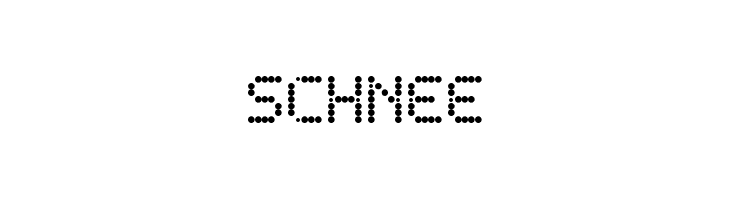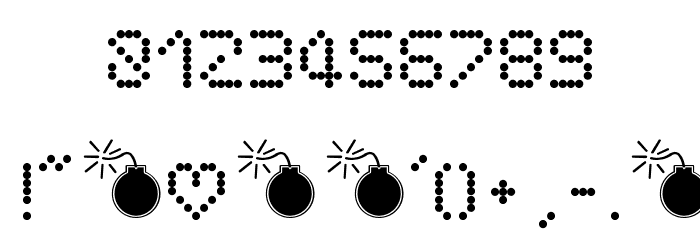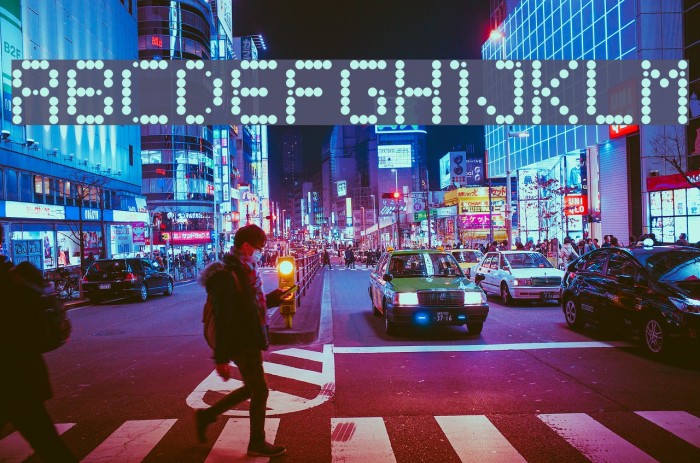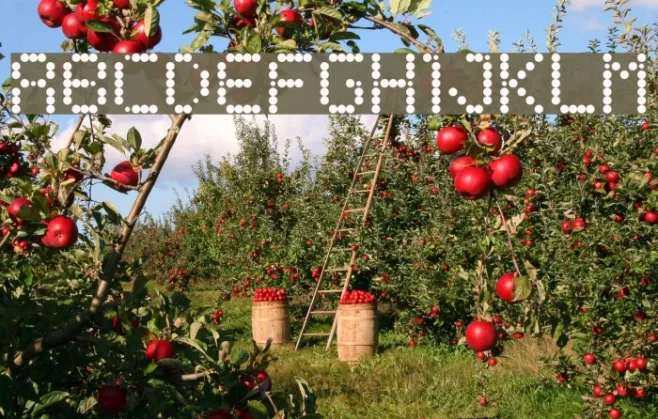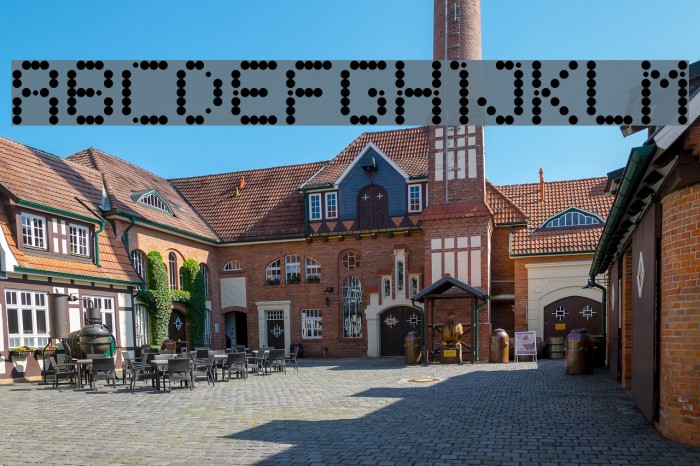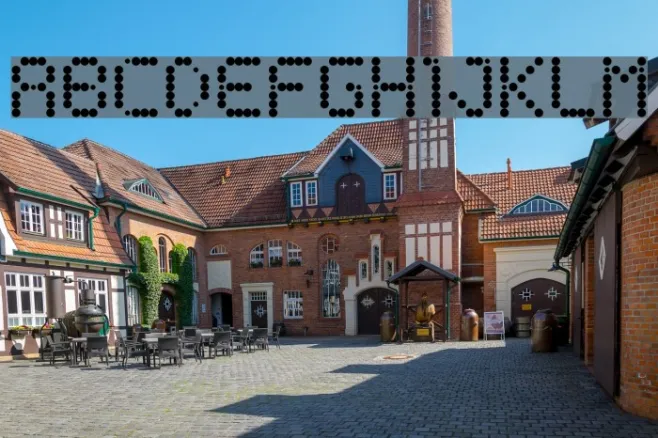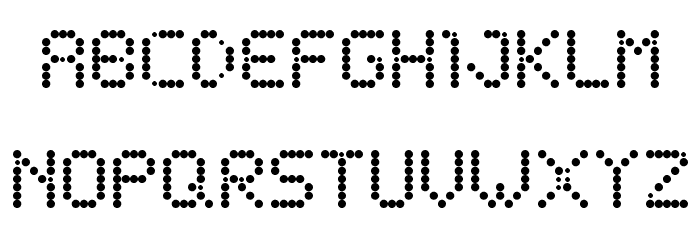
schnee Font
schnee Description
This font features a unique dotted style, where each character is composed of a series of evenly spaced dots. The design is playful yet structured, offering a modern twist on traditional typefaces. The uniformity of the dots creates a cohesive look across all characters, making it ideal for projects that require a distinctive and eye-catching appearance. The font includes both uppercase and lowercase letters, numerals, and a variety of special characters, all maintaining the dotted motif. This style is particularly suitable for digital displays, creative projects, and any application where a fun and unconventional typeface is desired.
| Use Case | Headlines, Logos, Digital displays |
| Proposed Projects | Ideal for digital displays, creative projects, posters, and any design requiring a unique and eye-catching typeface. |